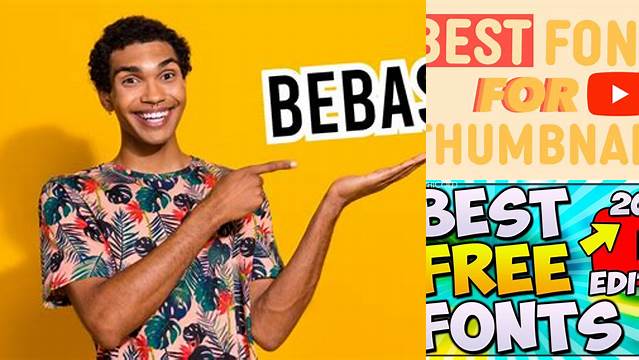
Best Fonts For Thumbnail Downloads: A Comprehensive Guide
Are you looking to level up your thumbnail game? Choosing the right fonts can make or break your click-through rates. Thumbnails are your first impression, and a well-designed thumbnail with the right font can grab attention and entice viewers to click. In this guide, we'll dive into the world of fonts for thumbnail downloads, exploring the best options and how to use them effectively. From bold and impactful fonts to more subtle and elegant choices, we'll cover everything you need to know to create eye-catching thumbnails that stand out from the crowd. So, let's get started, and let's get those clicks!
Why Font Choice Matters for Thumbnails
Alright, guys, let's talk about why font selection is so crucial for your thumbnails. Think of your thumbnail as a tiny billboard. It needs to quickly convey what your video or content is about and why people should care. The font you choose plays a massive role in this. A bad font can make your thumbnail look unprofessional, confusing, or just plain unappealing. A good font, on the other hand, can instantly grab attention, communicate your message effectively, and give your brand a consistent feel. When a viewer is scrolling through a sea of content, your thumbnail needs to stand out. It needs to be easily readable at a glance. Fonts are the key here. If your font is too small, too fancy, or too hard to read, people will scroll right past it. They won't bother trying to decipher what it says. They'll just move on to something that's easier on the eyes. That's why clarity and readability are king. Your thumbnail should immediately tell the viewer what the video is about. The font contributes significantly to this clarity. Using a font that complements your video's subject matter is crucial. For example, a tech review might use a sleek, modern font, while a gaming video could opt for something bolder and more energetic. Consider your audience, too. Who are you trying to reach? What fonts do they resonate with? You want to use fonts that align with your brand's overall look and feel. Consistency helps build brand recognition. If you're creating a series of videos, use similar fonts across all thumbnails. So, when someone sees your thumbnail, they instantly recognize your brand, increasing the chances they'll click. Finally, think about the overall aesthetic. Fonts are a design element, just like colors, images, and layout. They contribute to the mood and feel of your thumbnail. Some fonts feel friendly, while others feel serious. Some are playful, others are professional. The right font can create the right vibe and increase the appeal of your thumbnail.
Top Fonts for Thumbnails: Download and Use
Now, let's get to the good stuff: the best fonts for your thumbnail downloads. I have compiled a list of some amazing font choices, available for download and immediate use, to make sure your thumbnail game is always on point. These fonts are chosen for their readability, impact, and versatility.
- Impact: It's a classic for a reason! Impact is a bold, heavy font that demands attention. It's perfect for titles and key phrases that you want to pop. Its thick strokes make it easy to read at small sizes, which is essential for thumbnails. However, because of its boldness, use it sparingly. It's best for short, punchy text and for adding emphasis. Don't overdo it, or your thumbnail might look cluttered.
- Roboto: A versatile and modern font, Roboto is a great all-around choice. It's clean and easy to read, with a slightly geometric feel that makes it suitable for a wide range of video topics. Roboto is available in various weights and styles, so you can find the perfect fit for your thumbnail. It works well for both titles and body text, offering a consistent look and feel.
- Oswald: If you need a font that's both stylish and readable, check out Oswald. This condensed font is great for fitting longer titles into your thumbnail without sacrificing legibility. It has a strong, modern aesthetic, making it ideal for tech, gaming, and lifestyle videos. It's particularly effective for adding a touch of sophistication to your thumbnails.
- Bebas Neue: This font is a bold, clean sans-serif that's incredibly popular for a reason. It's great for creating a strong visual impact. Bebas Neue is easy to read and looks fantastic in all caps, making it a top choice for headlines and important details. Make sure you download this font when you're getting started with your thumbnails.
- Montserrat: It is another versatile sans-serif font that offers a clean and modern aesthetic. Montserrat is easy to read at smaller sizes, making it perfect for thumbnails. It's available in multiple weights and styles. This allows you to customize the look of your thumbnail. It's a great option for a professional and polished look.
- Open Sans: A highly readable and widely used font, Open Sans is another excellent choice for thumbnails. Its open design and clear letterforms ensure easy readability at any size. It's a versatile font that works well with a variety of video topics. If you're looking for a reliable and user-friendly option, Open Sans is your friend.
- Anton: Want a bold, attention-grabbing font? Anton is a great option. It's a condensed, impactful font that's perfect for headlines and short, punchy phrases. Its strong, angular design makes it instantly recognizable and memorable. It's ideal for thumbnails where you want to make a bold statement.
These fonts are all readily available for download and can be easily implemented in your favorite image editing software. Remember to consider the overall design of your thumbnail when choosing a font. Think about the color, layout, and any other design elements you're using. The font should complement and enhance these elements, not compete with them.
Tips for Using Fonts Effectively in Thumbnails
Alright, guys, let's talk about how to use those awesome fonts effectively in your thumbnails. Even with the best fonts, you can still miss the mark if you don't use them properly. Here are some tips to get you started. First, prioritize readability. This is the number one rule. Your thumbnail's primary goal is to communicate information quickly and clearly. If your font is difficult to read, it defeats the purpose. Ensure your font size is large enough to be seen at a glance. Avoid using fonts that are too intricate or stylized, as they can be challenging to read at small sizes. Use contrasting colors for your text and background. High contrast makes your text stand out. If you use a dark background, opt for a light-colored font. Conversely, if your background is light, use a dark font. Color plays a crucial role in readability.
Second, keep it concise. Use as few words as possible. Thumbnails are small. Too much text will clutter your thumbnail, making it difficult to understand. Aim to convey your message with a few key words or a short phrase. Remember, less is often more. The best thumbnails get straight to the point. Also, focus on the most important information. What do you want viewers to know immediately? Highlight that information.